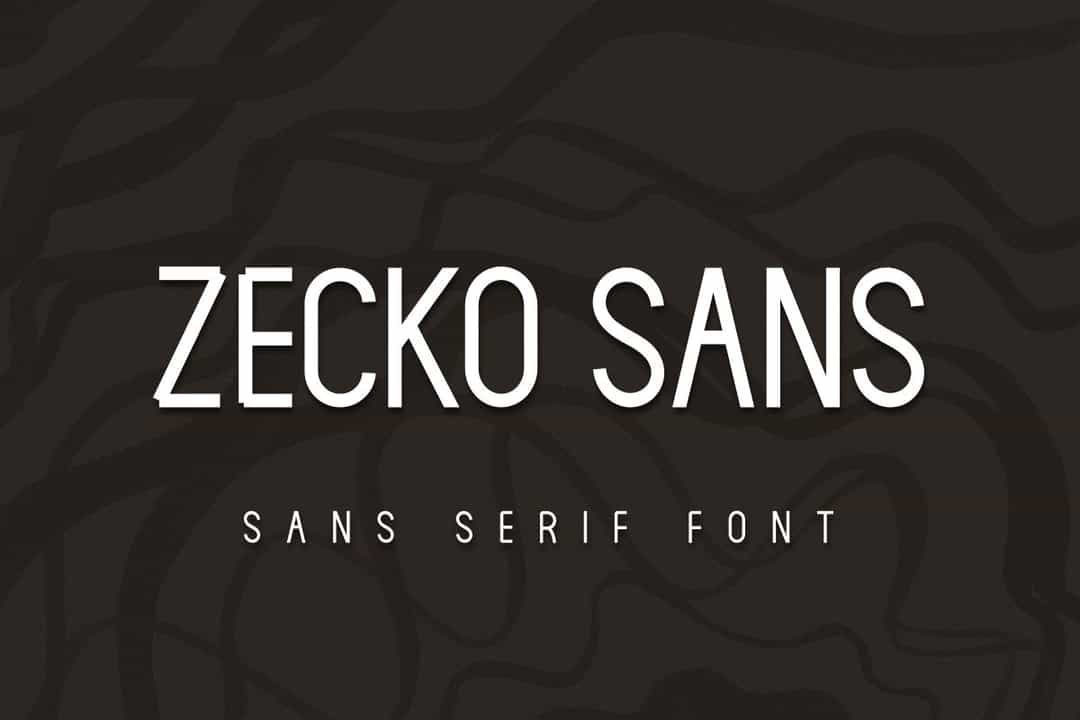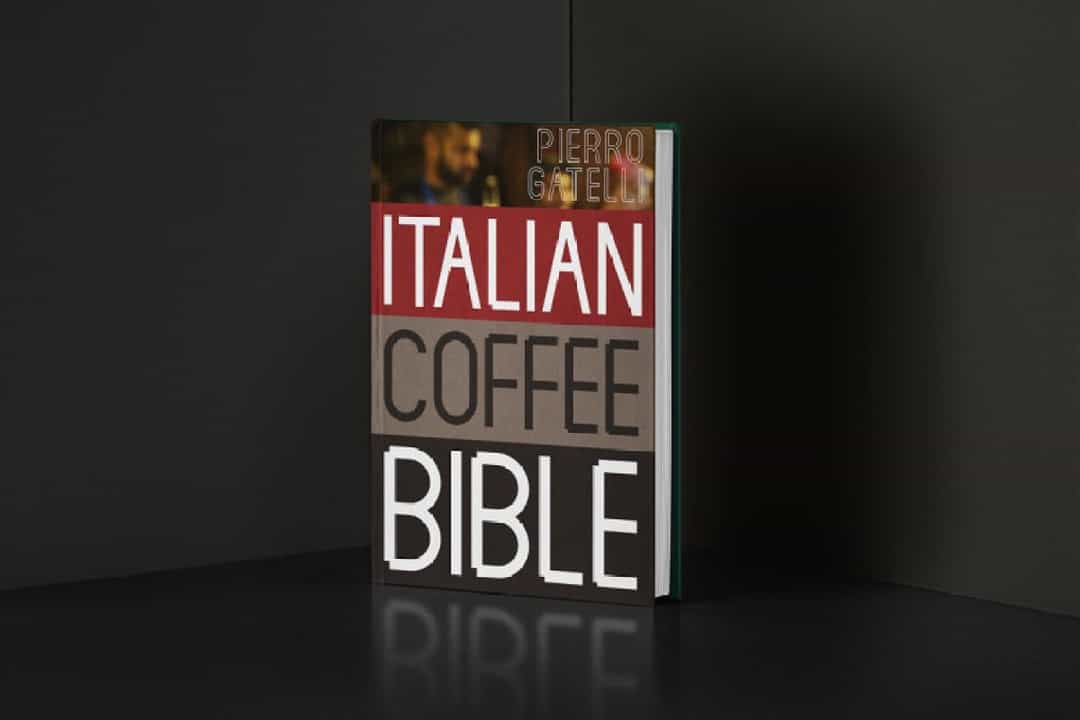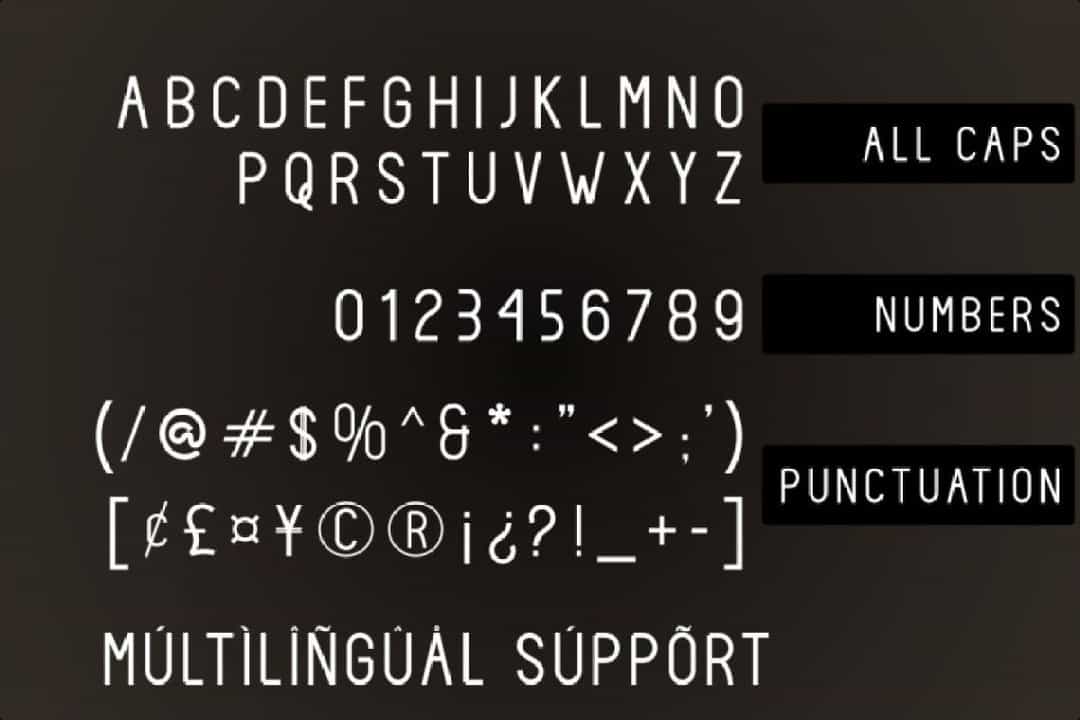
Zecko is a casual font with a sans serif design and it has Standard upper and lower case letters, numerals, punctuation signs and some special symbols and letters. Suitable for a number of design applications including heading, wedding items, designs, signatures, logos and labels.